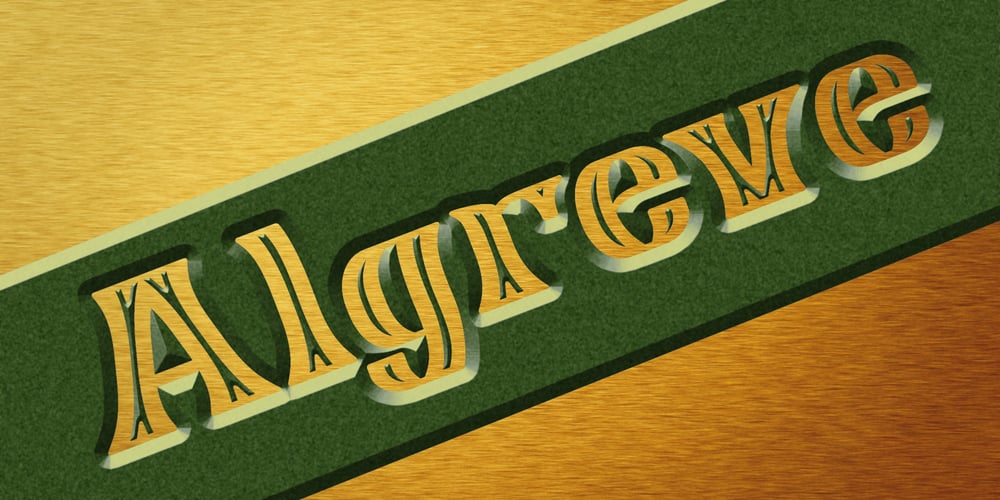
Algreve Font Family was designed by Paul James Lloyd and published by Greater Albion Typefounders. Algreve contains 1 styles and family package options. Algreve is the progenitor of our recent set of WoodType inspired typefaces. It’s more sophisticated, perhaps, and less rustic than one of the others. It’s incised or hand-tooled style lends a little sophistication and a little lightness. Ideal for period poster work…